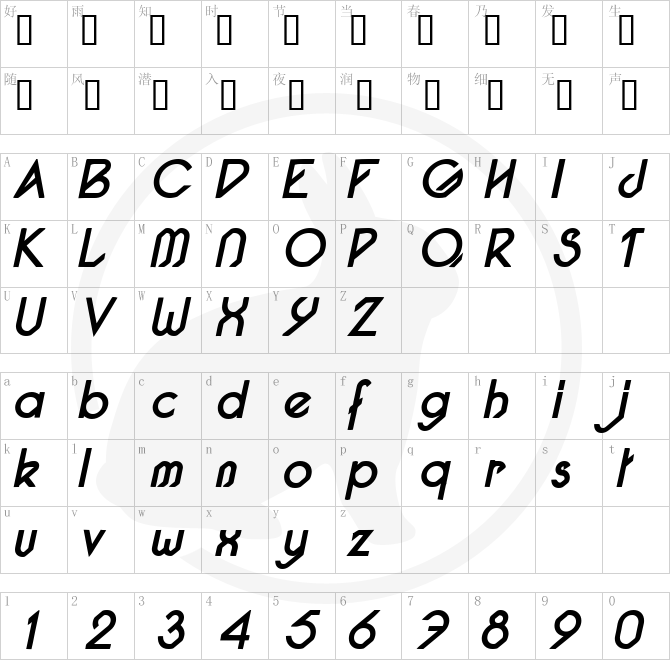
- Font Name:Pacotilleital
Pacotilleital-bold.ttf is a very beautiful artistic font, Pacotilleital-bold.ttf is widely used in the design and printing of various books and pictures,Pacotilleital-bold.ttf has a strong visual impact,Pacotilleital-bold.ttf is a commonly used font in newspapers, magazines and books, and is used in posters, e-commerce Poster design, store design, logo design, font design and other fields.Pacotilleital-bold.